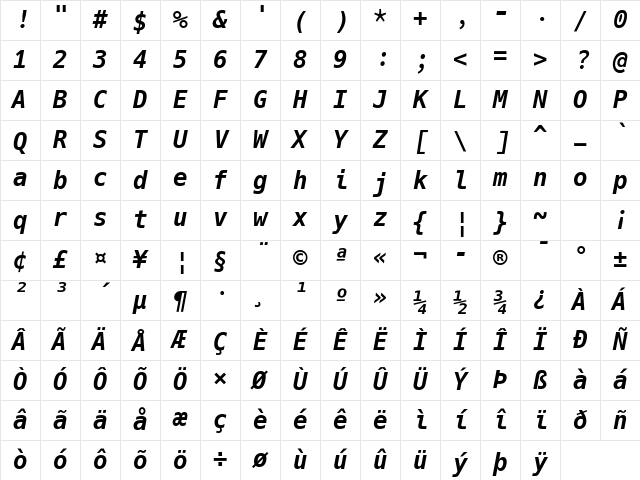
Hack NF Bold Italic
Foundry: Source Foundry
Designer: Source Foundry Authors
Design Context for Hack NF
Hack NF is a composed and adaptable typeface that performs quietly and consistently across a wide range of design contexts. The slanted form adds forward momentum and visual energy. Its bold stroke weight gives it real presence on the page.
Pro Tip: Use Hack NF for emphasis, pull quotes, and subheadings where its slanted energy can add rhythm to the layout.
Who designed the Hack NF Bold Italic font?